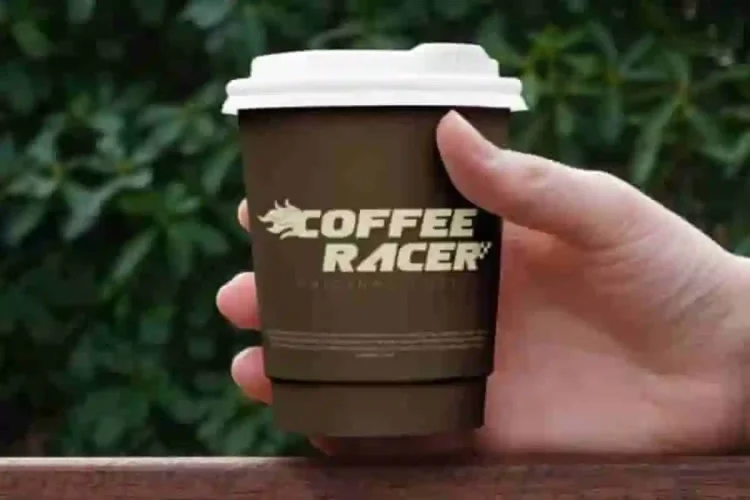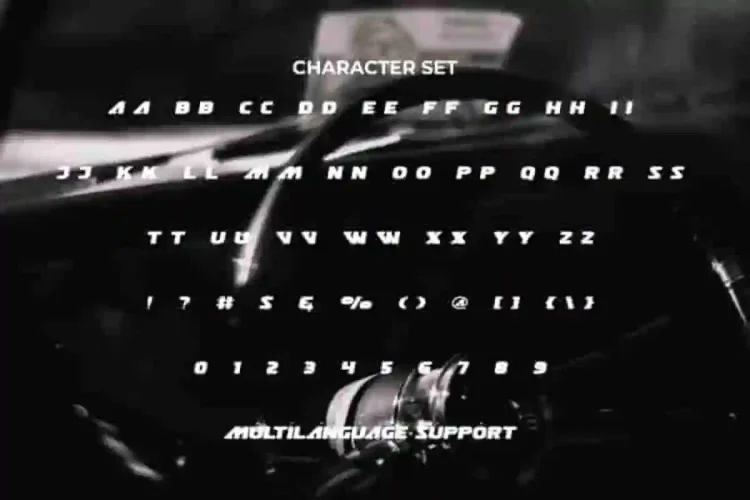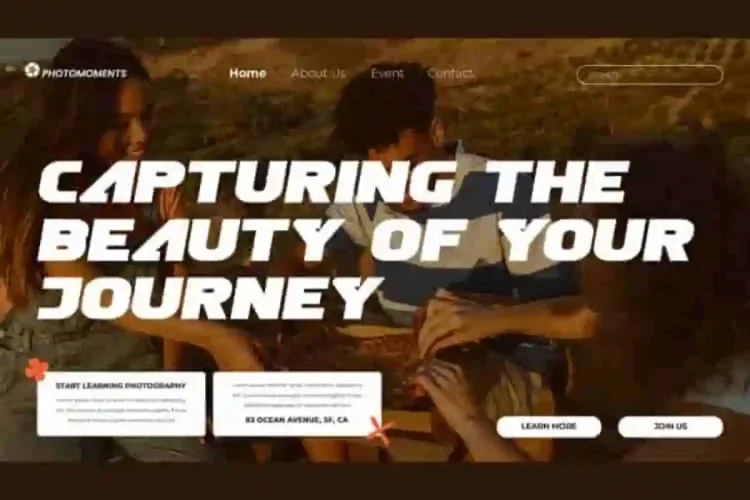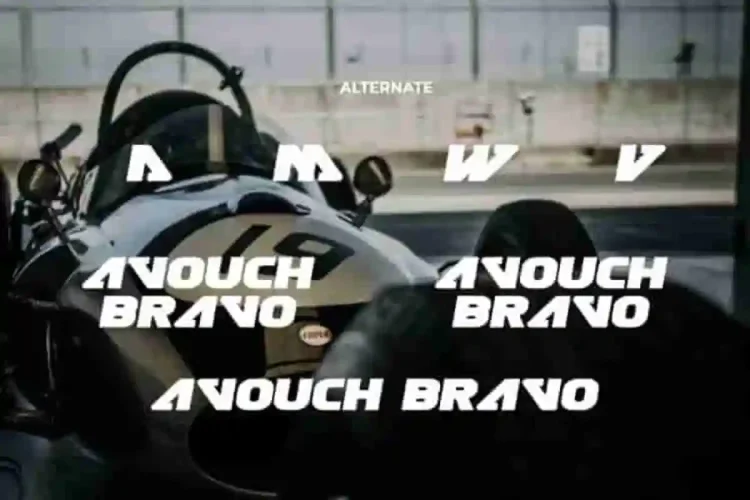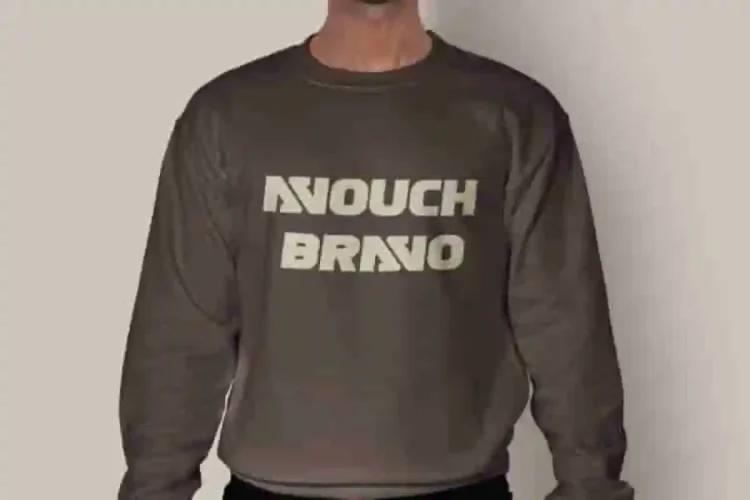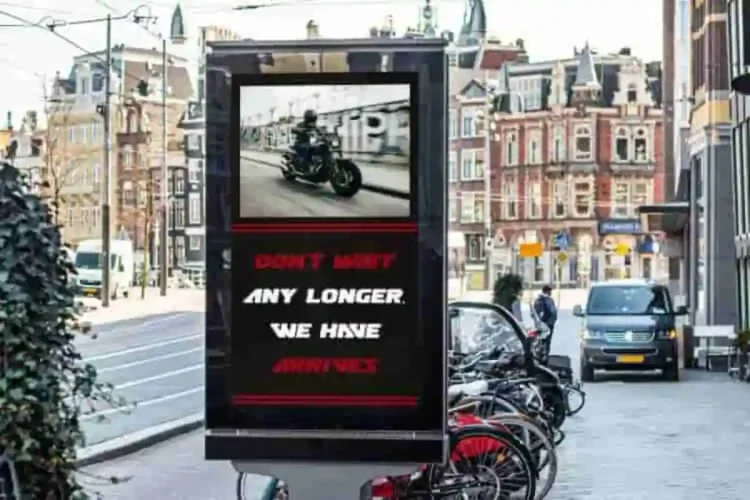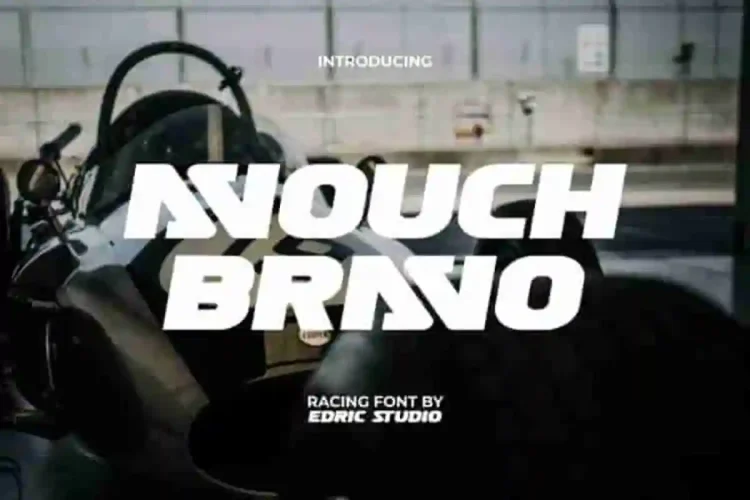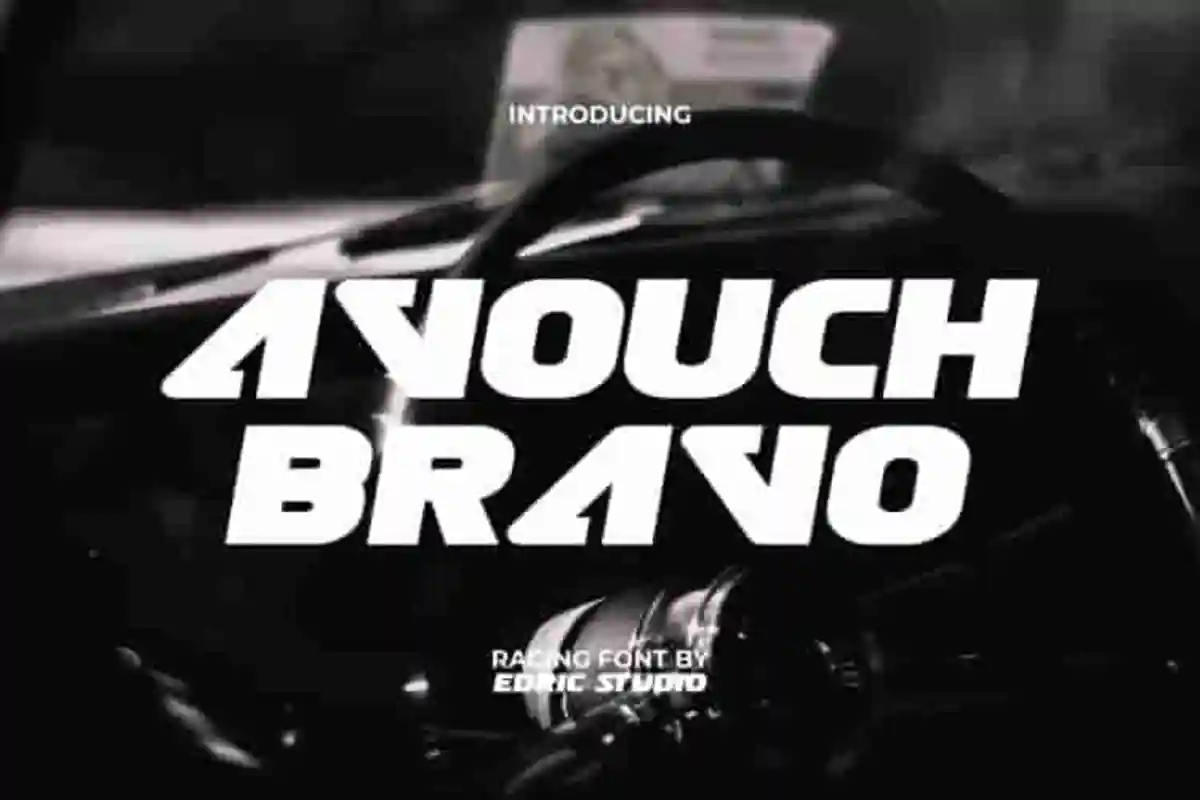
Avouch Bravo Modern Font is a modern and tough sports font with a hint of classic in it. Perfectly designed for easy reading in impactful and high-contrast font sizes, creating an effect of power and speed. Ideal for accessories and merchandise, advertising/marketing media, automotive, clothing brand, coffee shop, cycling, fashion, film, game, graphic designer, movie, photography, racetrack, sports matches, vehicle repair, and much more.
Avouch Bravo Modern Display Font features a complete set of ALL CAPS letters, Numbers, Punctuation, Symbols, and Alternates. Ideal for banners, billboard, blogs, covers, heading, logos, packaging, poster, quotes, screen printed, signboard, website, and much more.
Avouch Bravo Font a playful typeface with unique decoration in each character. Combine different characters for a bespoke, handcrafted feel. It’s tested to work well in the Adobe Apps (Illustrator, Adobe InDesign, Adobe Photoshop) even work on Microsoft Word. All of these characters are available through the glyph panel, moreover each letter has its own unicode (PUA) so you can access all the characters easily.